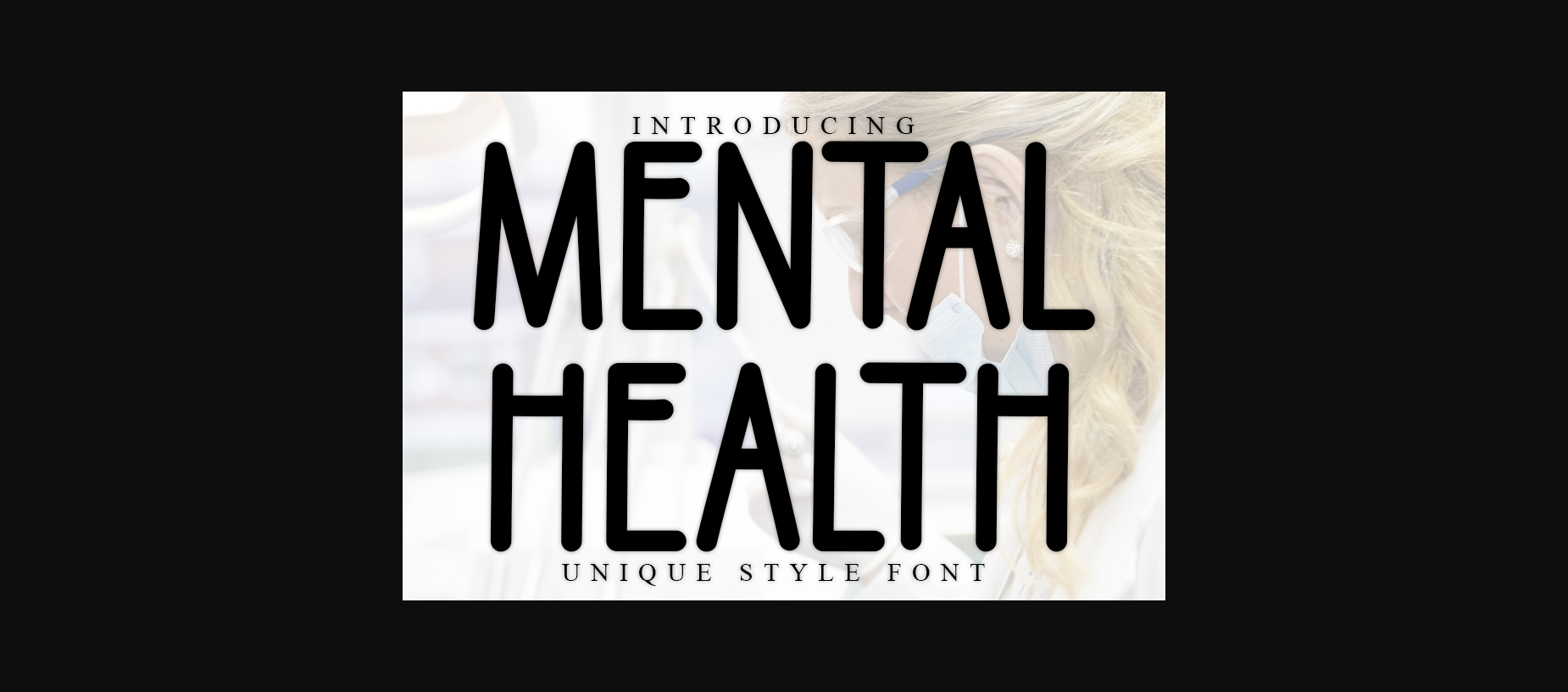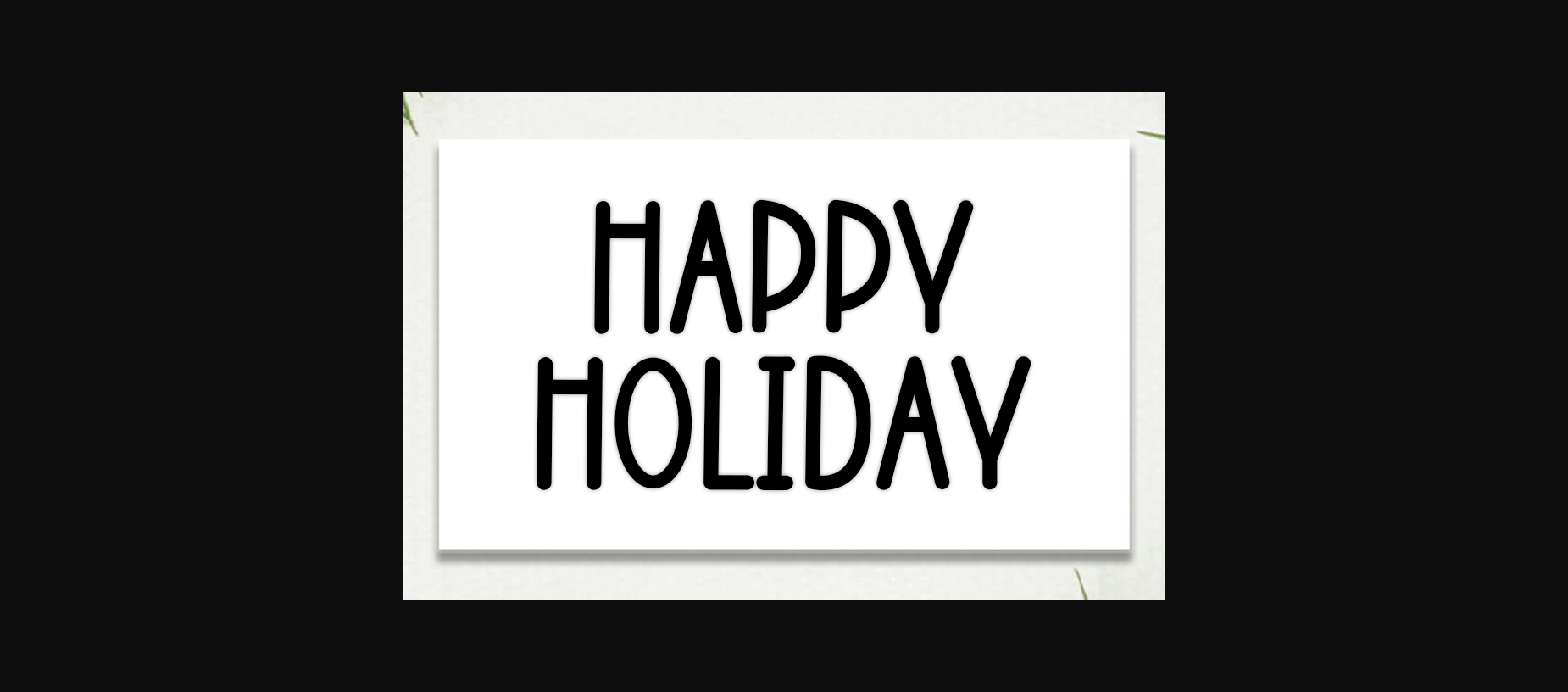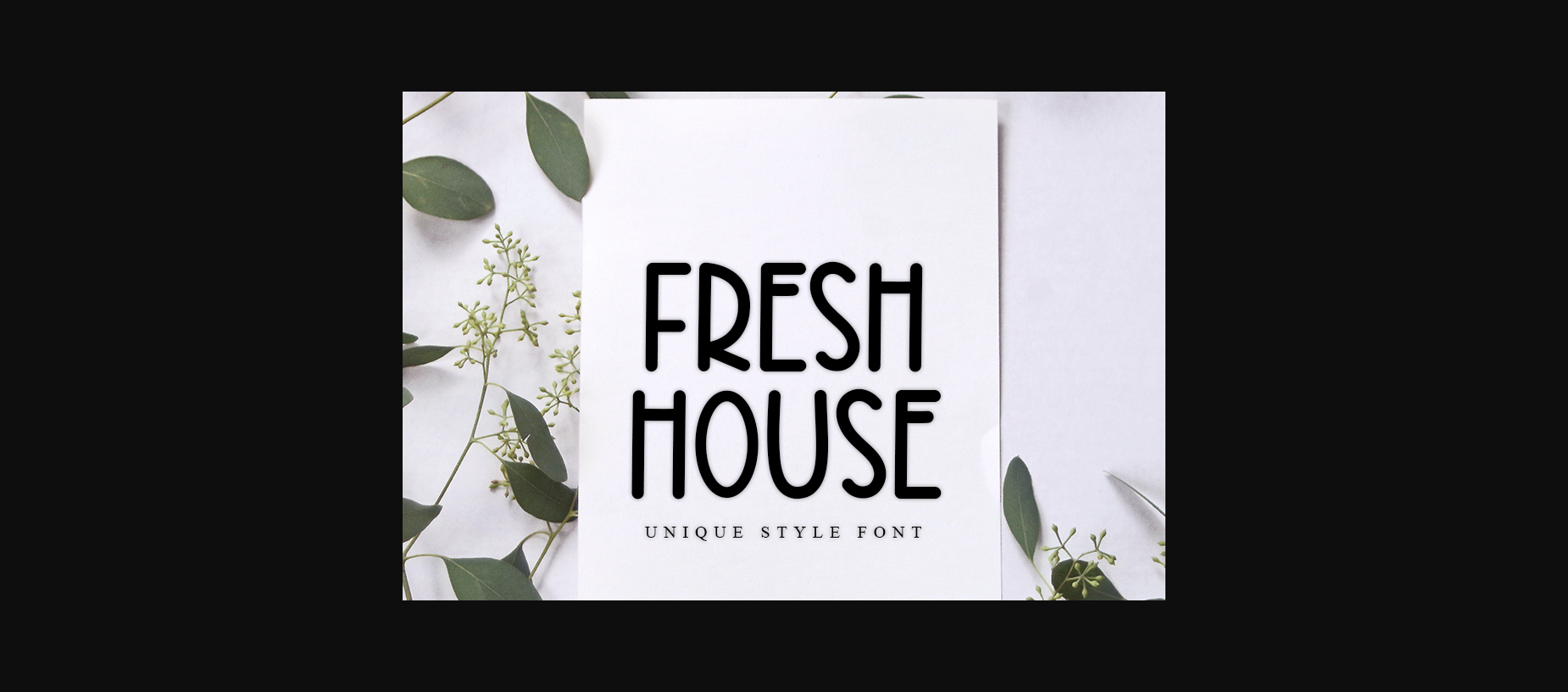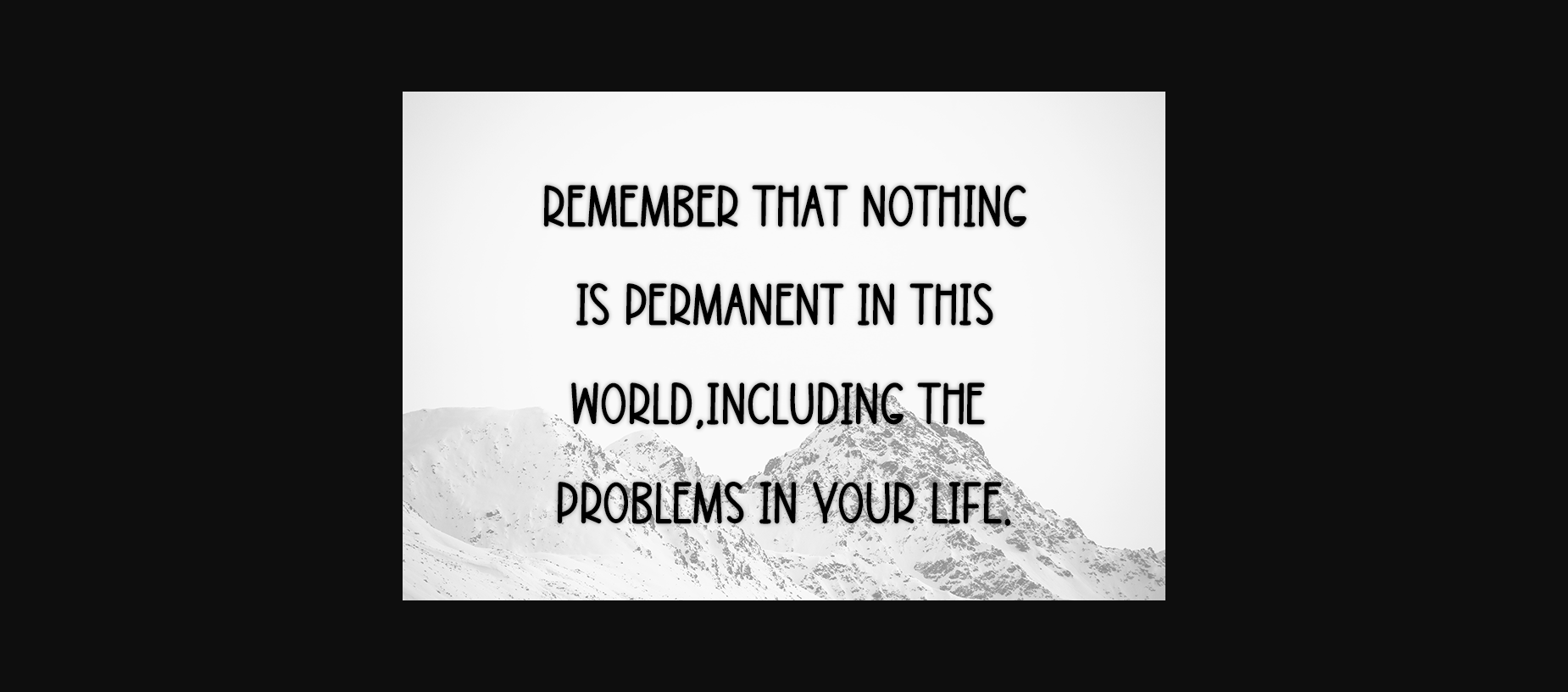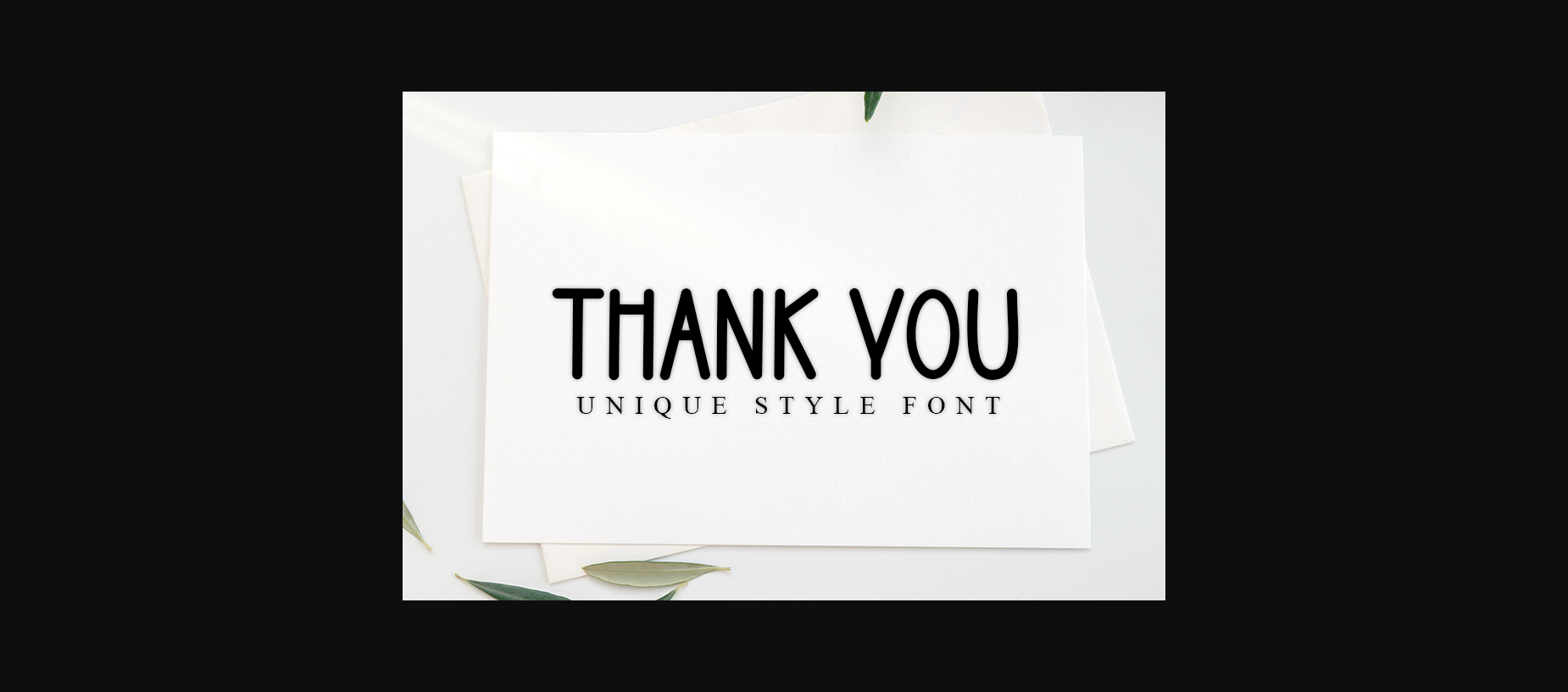
Mental Health Font
About Mental Health Font
Mental Health is a cool and modern Sans Serif font. Whether you’re using it for crafts, digital design, presentations, or making greeting cards, this font has the potential to become your favorite go-to font, no matter the occasion